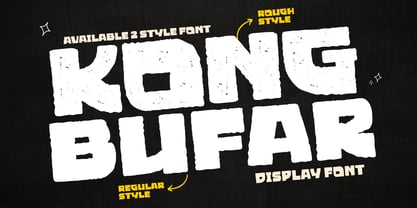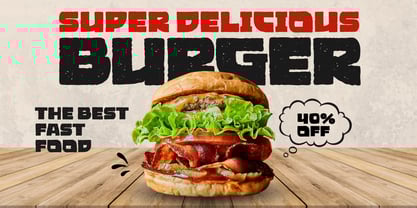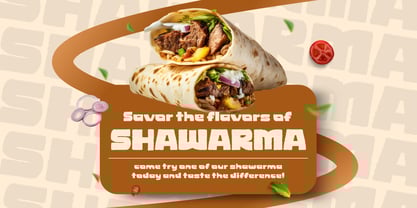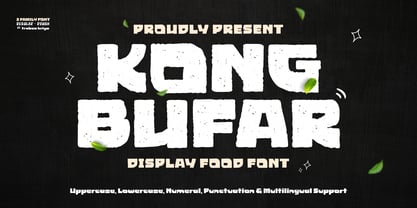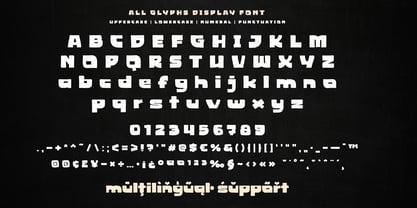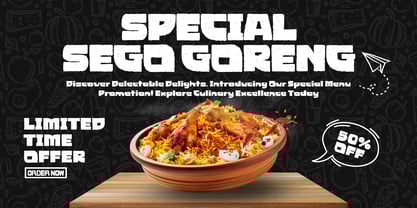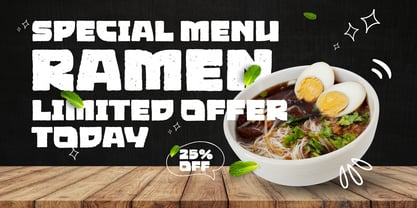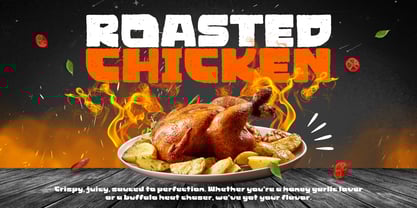
Kong Bufar
von Trabas Kriya
Die Schriftfamilie Kong Bufar wurde von Murozakul Akhsan entworfen und von Trabas Kriya veröffentlicht. Kong Bufar enthält 2 Stile und Familienpaketoptionen.
Kong Bufar is a bold display font crafted to bring flavor and personality into every food-related design. With chunky letterforms and a slightly rough texture, it captures the energy and excitement of culinary experiences—like that first bite of your favorite dish. Strong yet playful, this font is perfect for food brands that want to stand out with confidence.
From restaurant logos, food packaging, menus, street food promotions, to social media content, Kong Bufar delivers a fresh and appetizing look. The Regular style offers a clean, solid appearance, while the Rough version adds a handcrafted feel that enhances authenticity and warmth.
More than just typography, Kong Bufar is a visual identity that sparks appetite and emotion. It ensures your designs are not only eye-catching but also full of character, making every word taste as good as it looks.